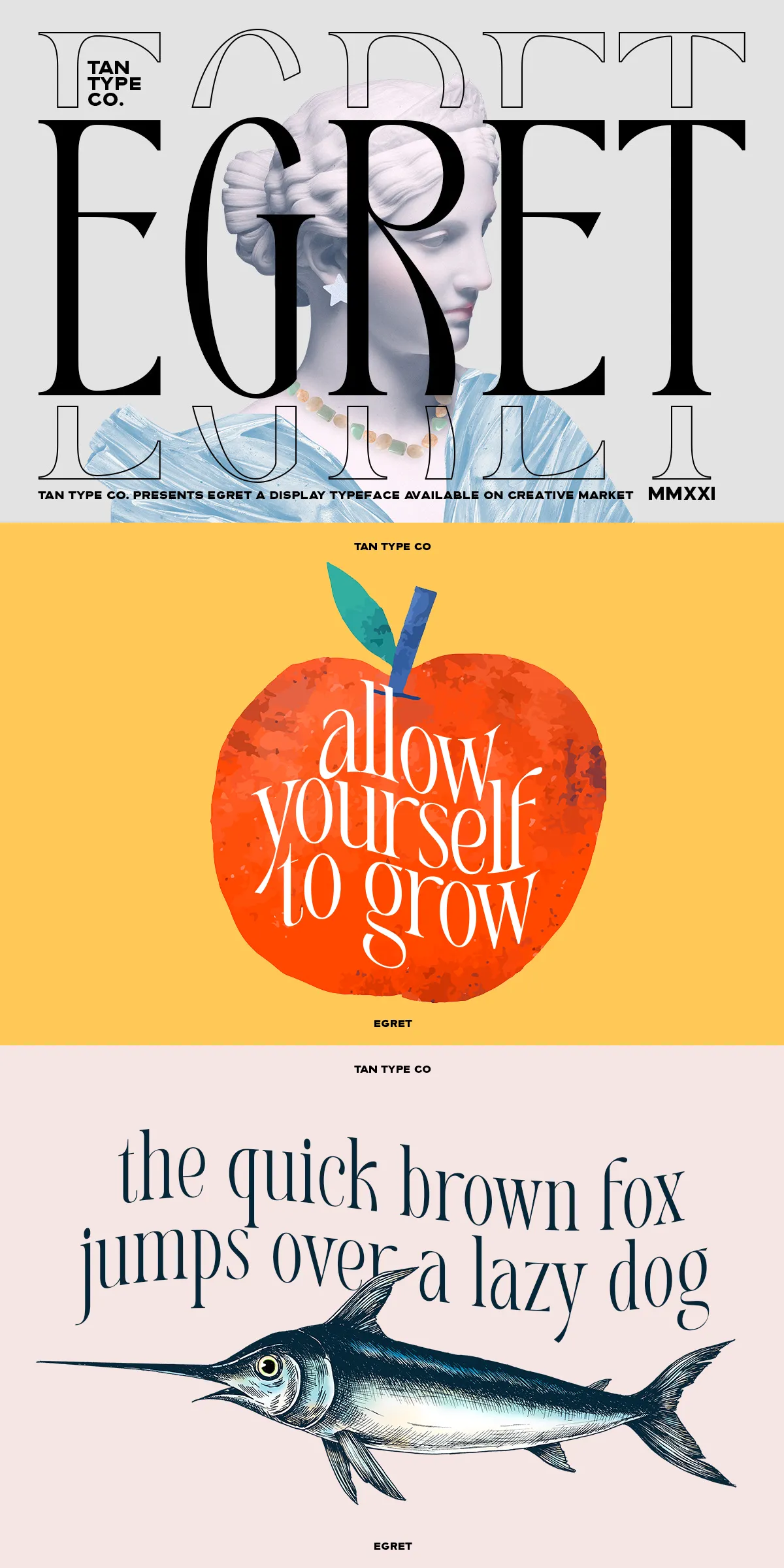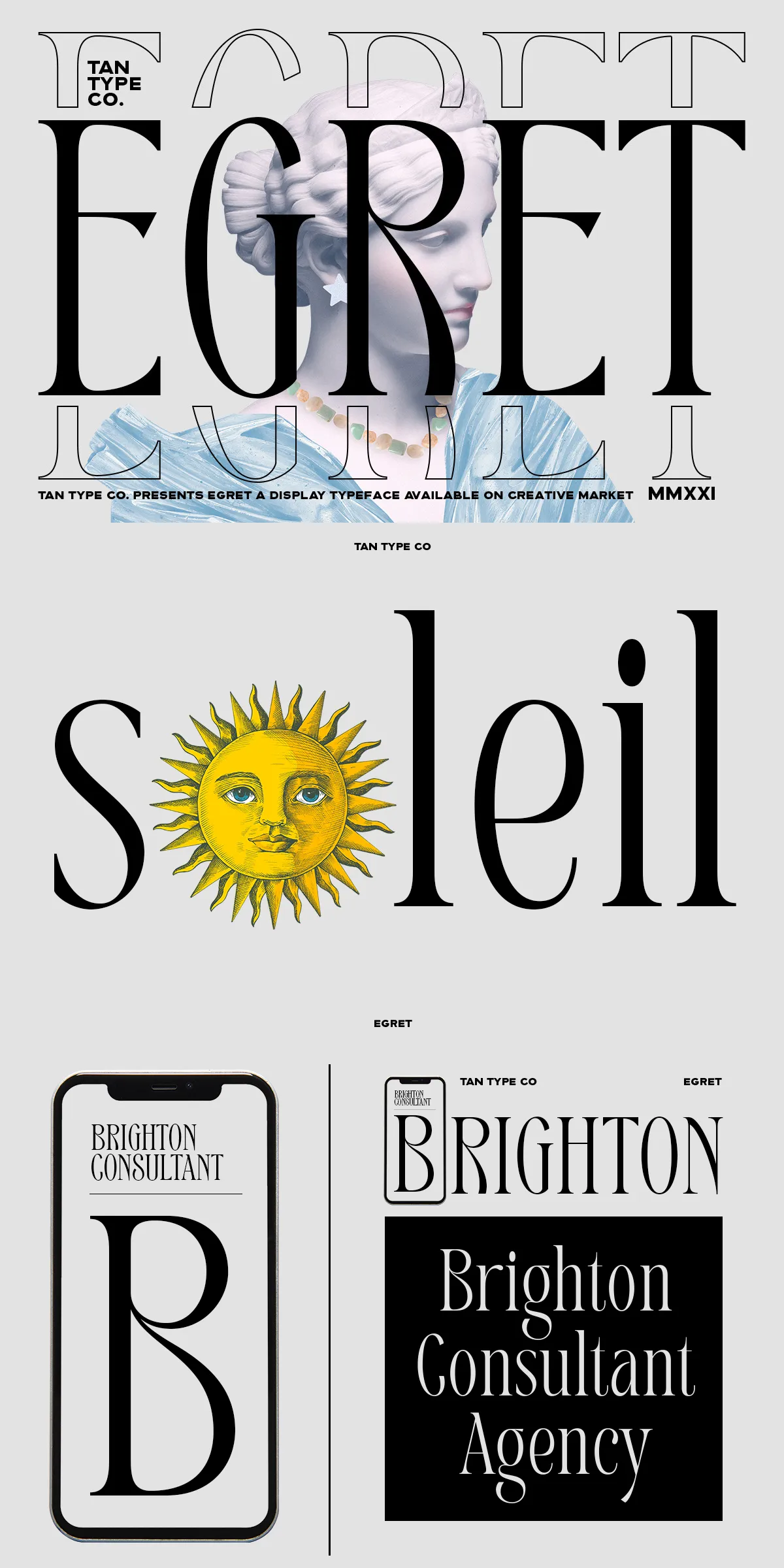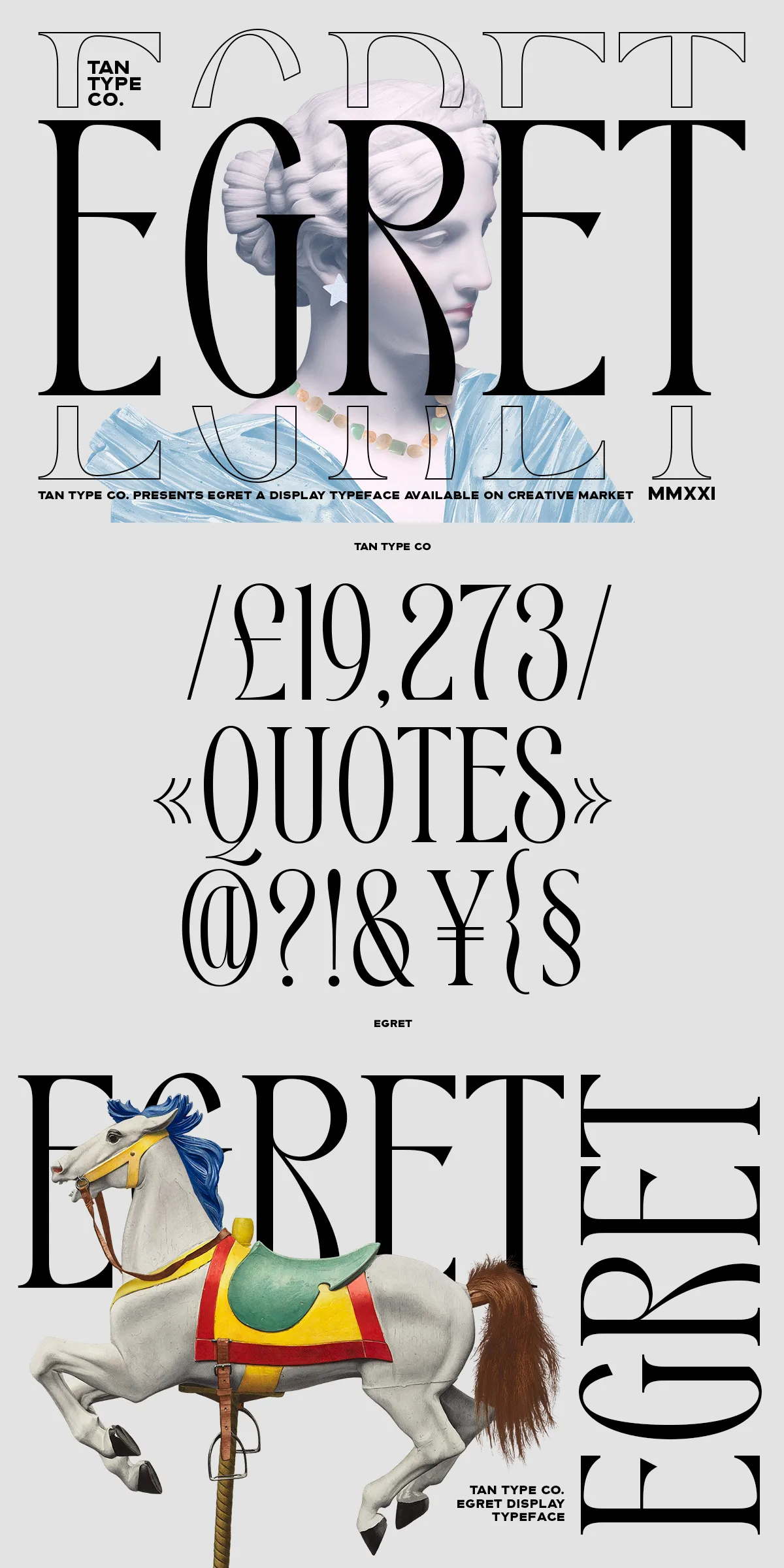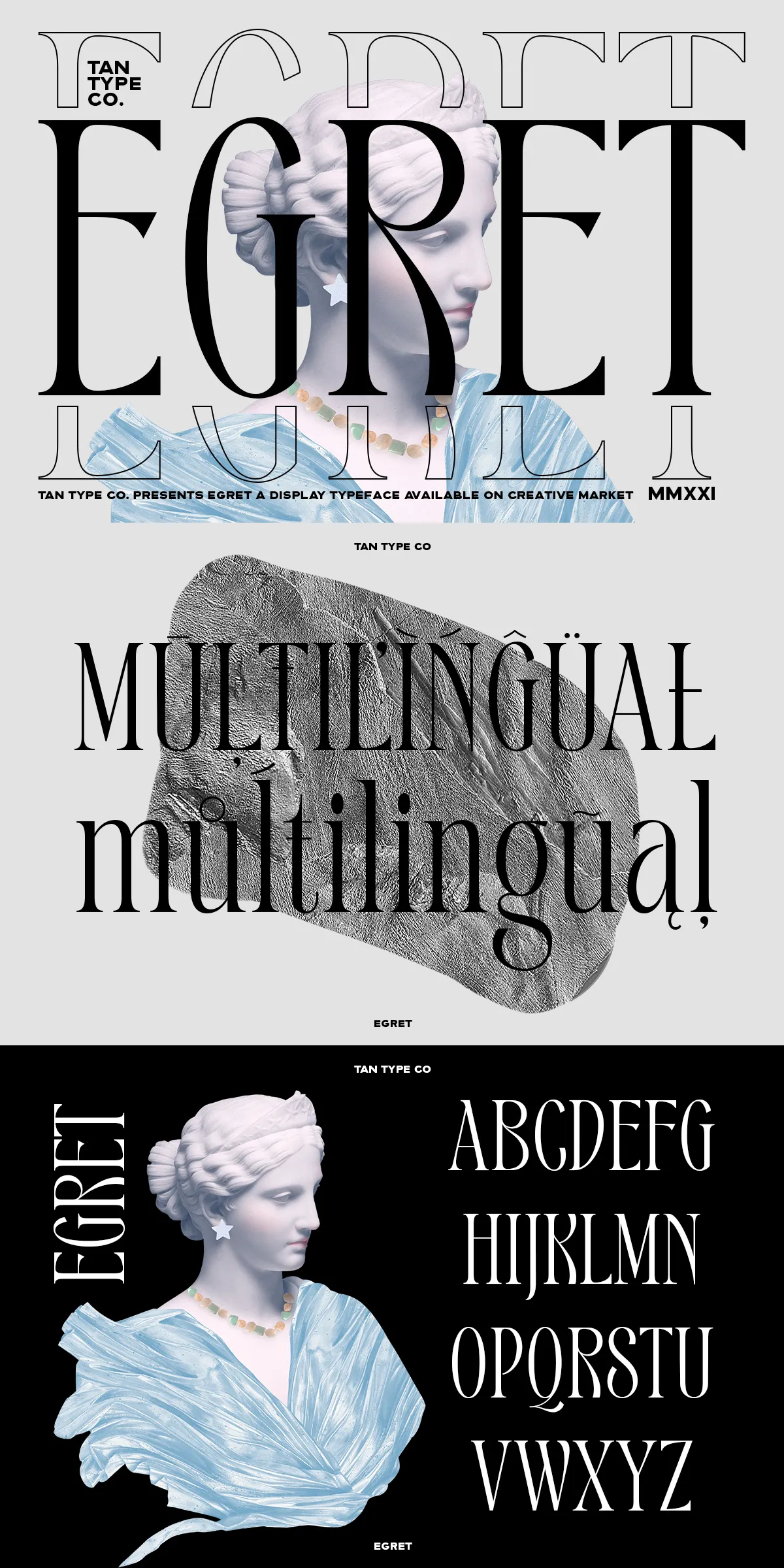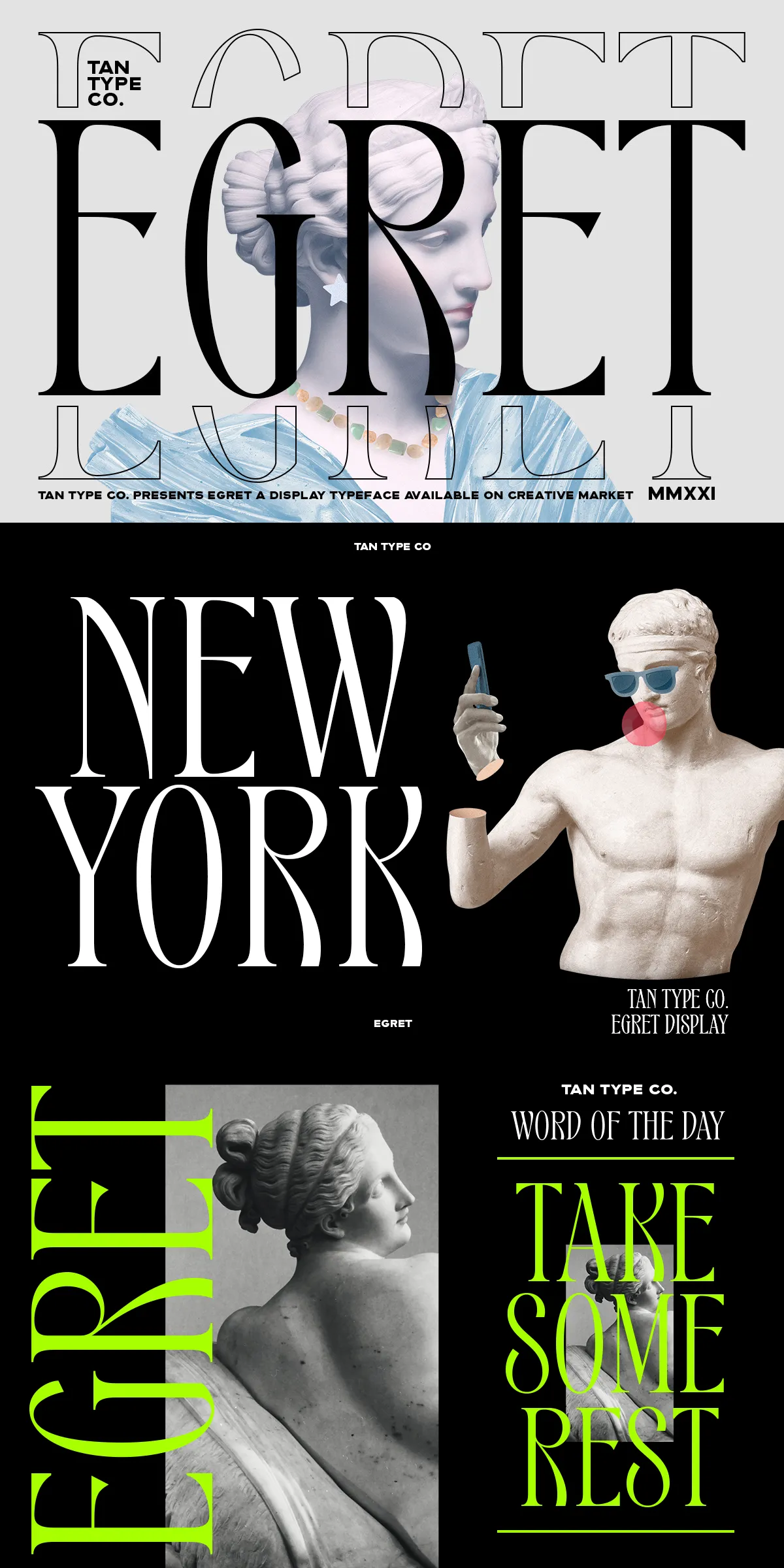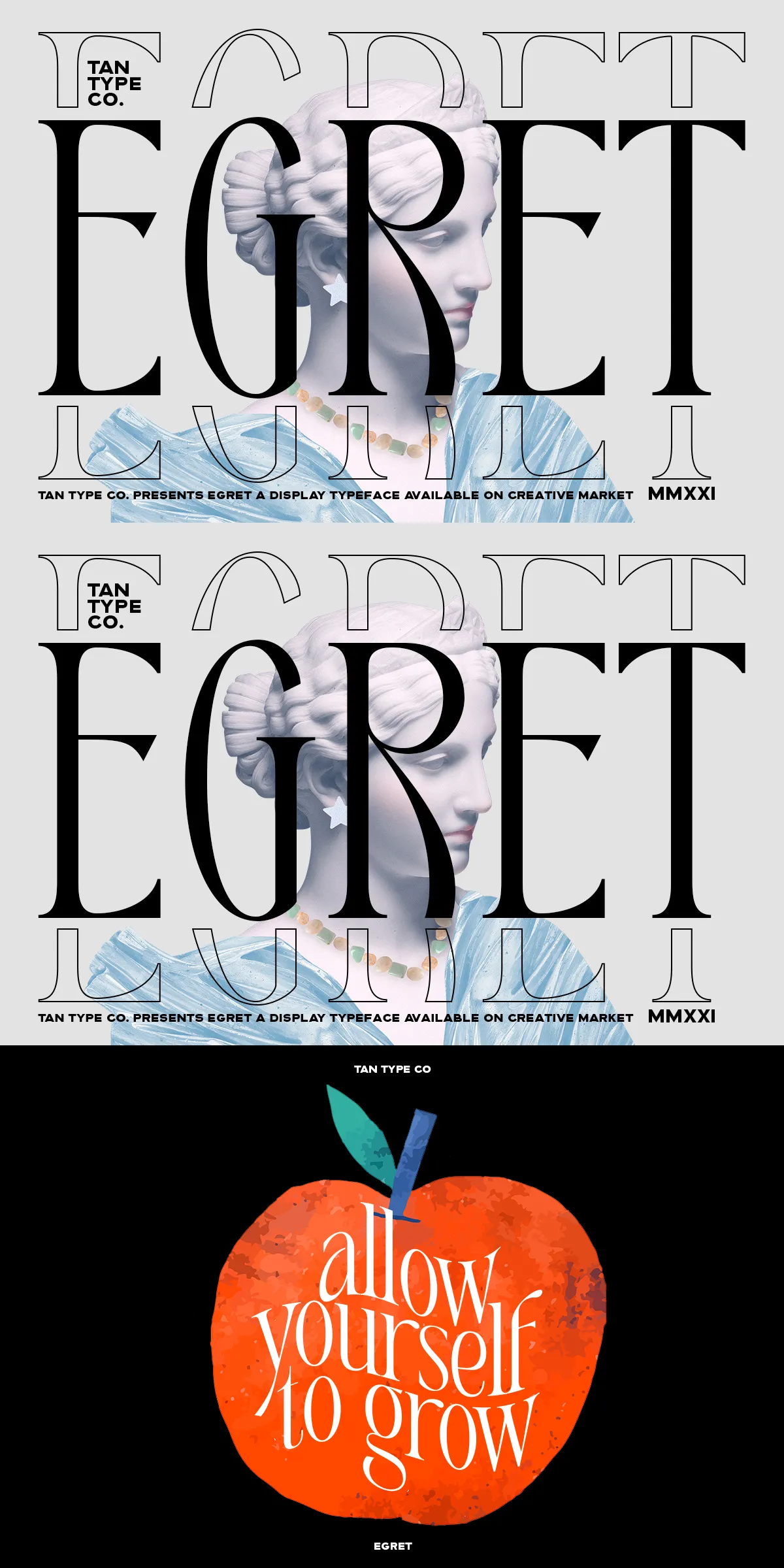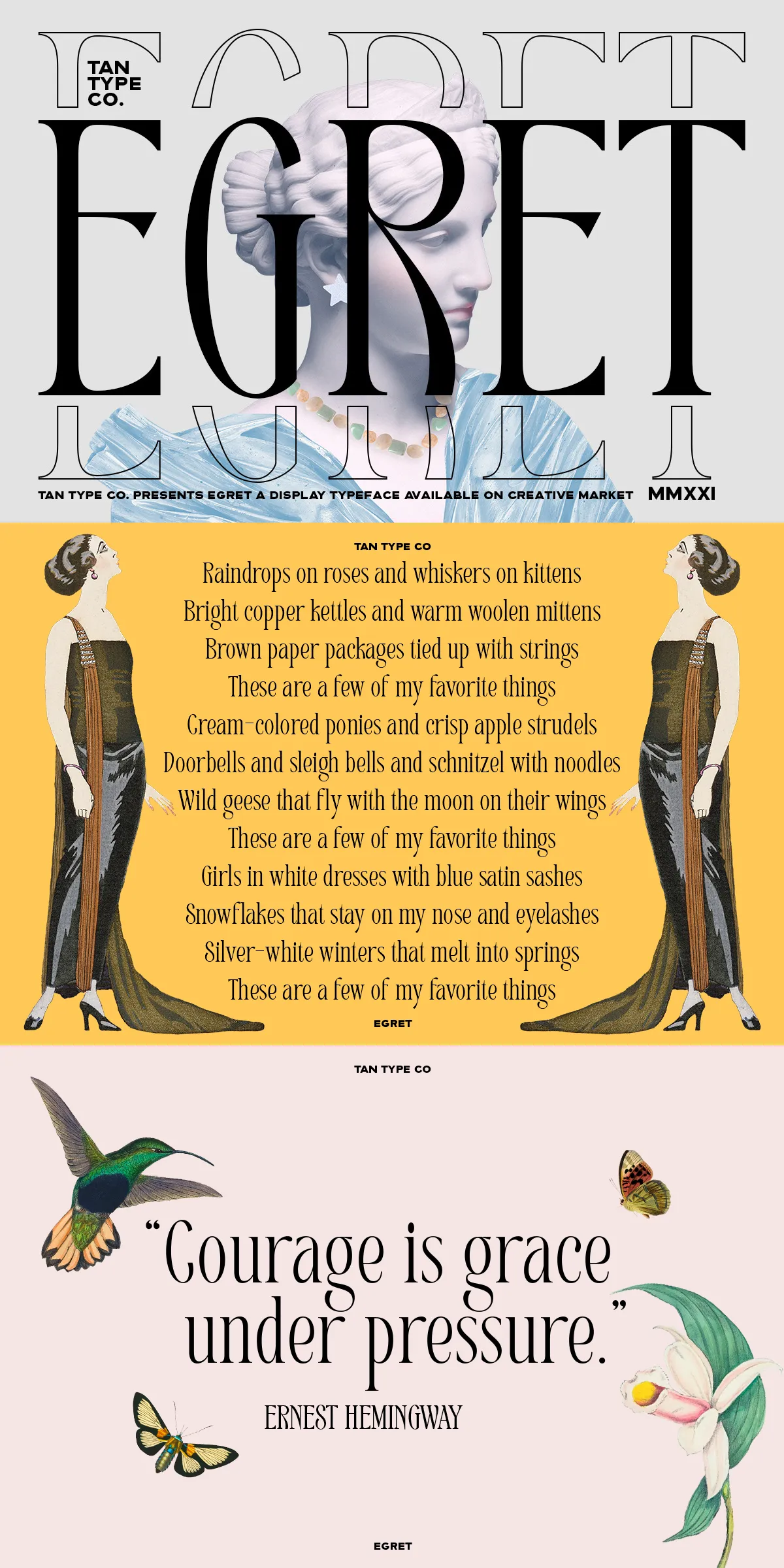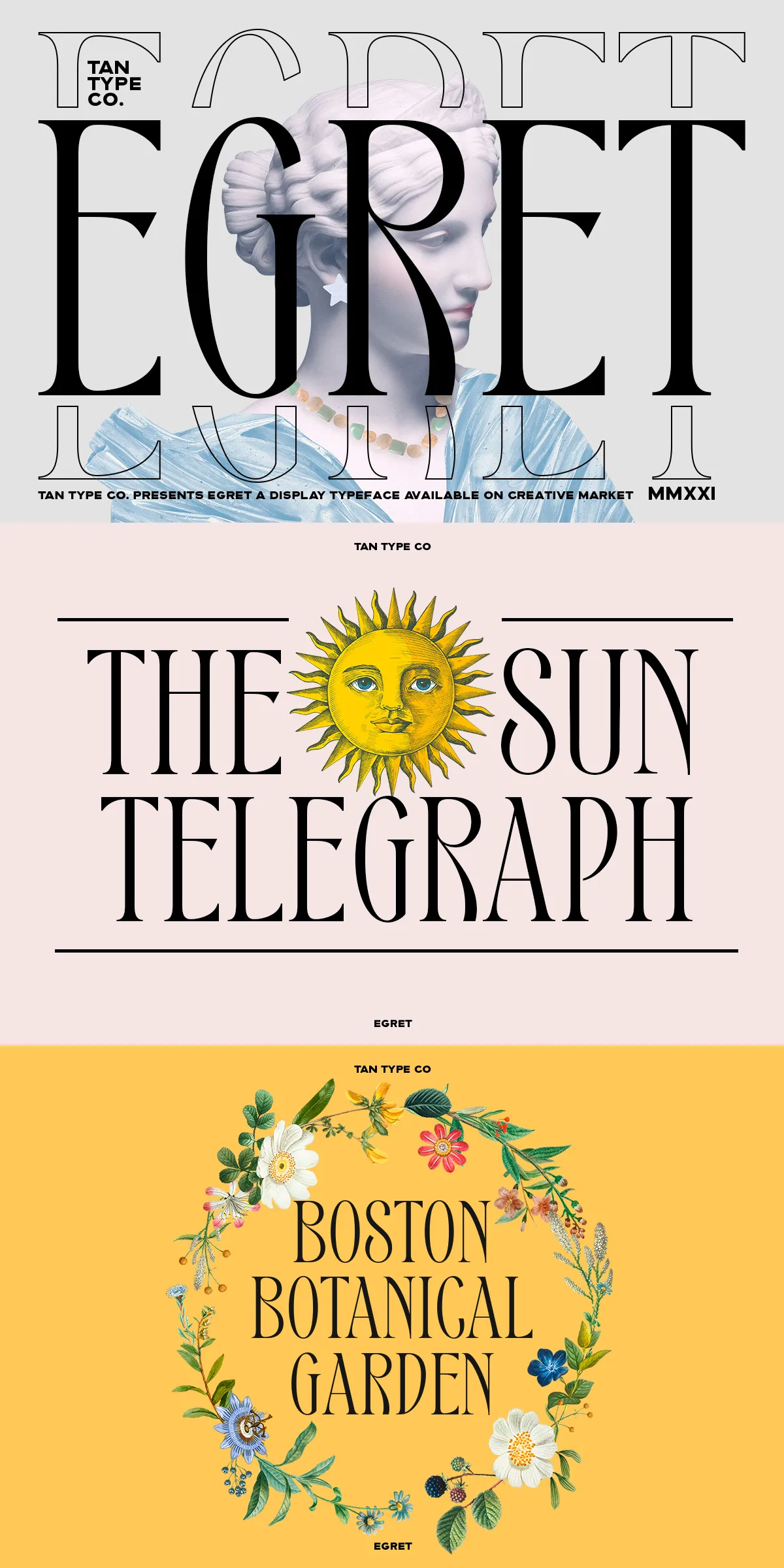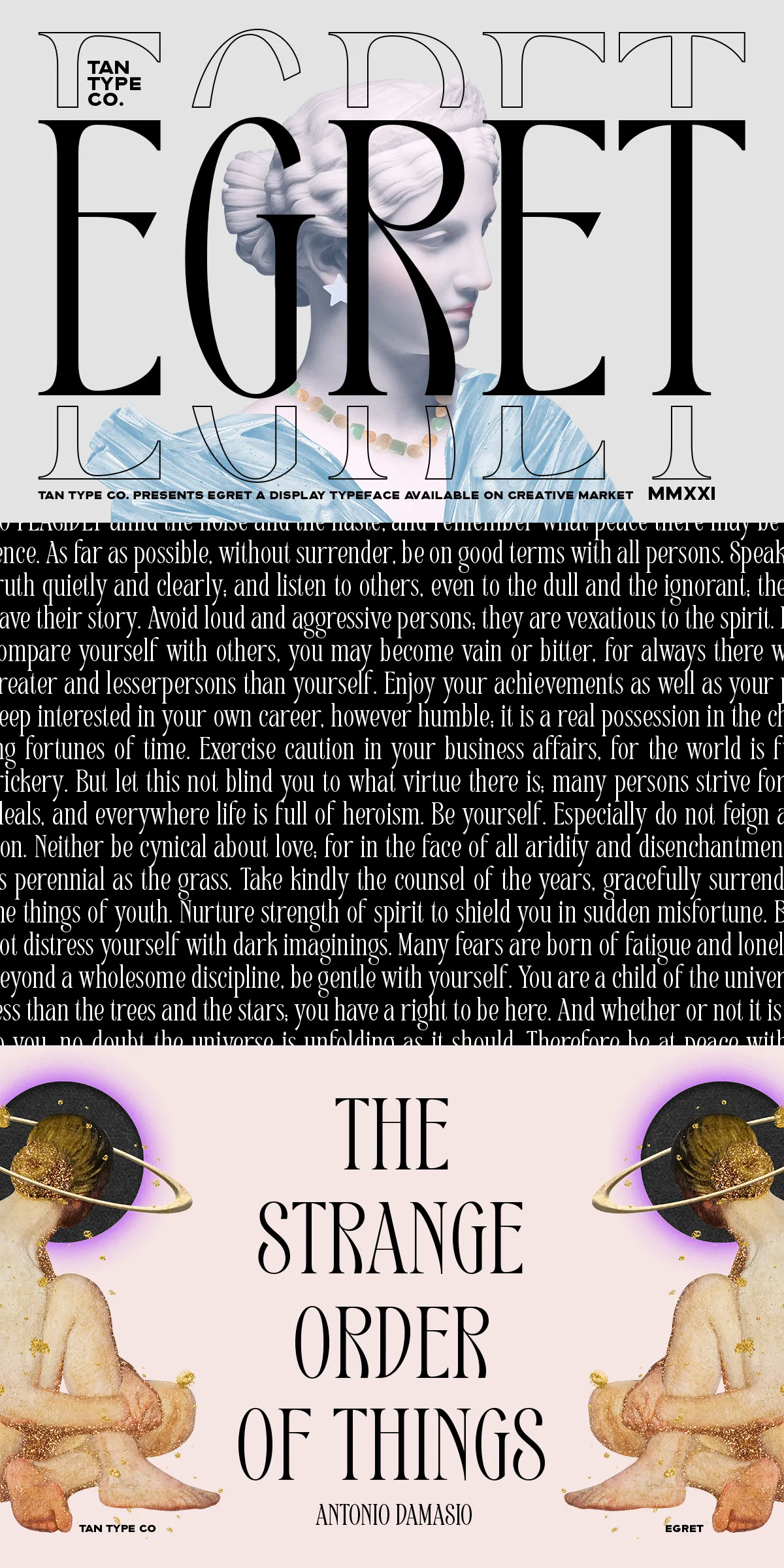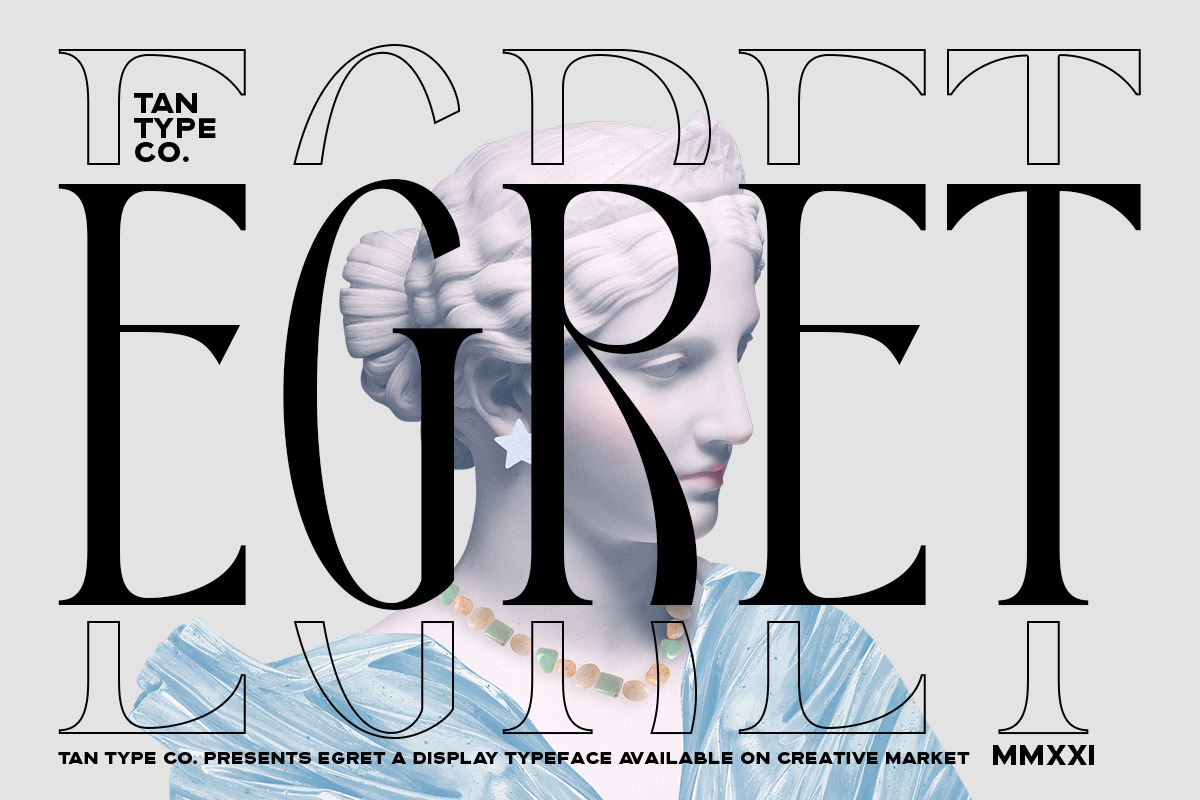
Introducing Tan Egret — a striking display font that masterfully blends the grace of classical typography with the precision of modern design. This isn’t just another font; it’s a statement piece crafted for creators who demand distinction. With its elegant serifs, delicate stroke contrast, and poised letterforms, Tan Egret adds an undeniable layer of prestige to any project — from high-end branding to expressive editorial layouts.
Whether you’re designing a luxury brand identity, crafting a boutique product label, or setting the mood for a cinematic cover, Tan Egret delivers the kind of visual storytelling that lingers in the mind long after first glance. It’s the font for those who believe that typography isn’t just readable — it’s memorable, emotional, and impactful.
Powerful Features Built for Professional Creativity
Tan Egret is engineered with both aesthetics and functionality in mind. Designed for versatility and depth, it supports a wide range of applications through advanced typographic features and broad language compatibility.
- Classic Display Aesthetic – Inspired by old-world craftsmanship yet fully optimized for digital and print use, offering a timeless yet contemporary feel.
- Full Multilingual Support – Includes comprehensive coverage for European languages and Vietnamese, with extended Unicode to support international projects without compromise.
- High-Resolution Rendering – Optimized for clarity at all sizes, from tiny icons to massive billboards, ensuring sharpness and precision in every application.
Where Tan Egret Shines: Real-World Applications
Tan Egret excels where elegance and identity converge. Here’s where it transforms ordinary projects into unforgettable experiences:
- Brand Identity & Logos – Build premium brand images for fashion, wine, spa, or art brands that speak with quiet confidence.
- Premium Packaging & Labeling – Elevate product presentation with a font that suggests craftsmanship, heritage, and exclusivity.
- Editorial & Magazine Design – Use Tan Egret as a headline font to create dramatic impact and visual rhythm in long-form content.
- Wedding Invitations & Stationery – Design timeless, sophisticated invitations that reflect personal taste and attention to detail.
- Advertising & Social Media Campaigns – Stand out in digital spaces with a font that feels exclusive, artistic, and curated.
- Book Covers & Publishing – Enhance literary branding with covers that suggest depth, mystery, and elegance.
Design Tip: Combine Tan Egret with a minimalist sans-serif font for body text to let its display qualities take center stage — achieving balance without sacrificing impact.
Elevate Every Letter Into a Legacy
Tan Egret doesn’t announce itself — it reveals itself. It’s not flashy, but it’s unforgettable. Every curve, every serif, every stroke is designed to evoke a sense of quiet confidence, timeless beauty, and curated taste.
Tan Egret is more than a font — it’s a partner in storytelling. It’s for designers, brands, and artists who understand that the best visuals aren’t just seen — they’re felt. This is the font for those who want their work to be remembered not just for its content, but for its character.